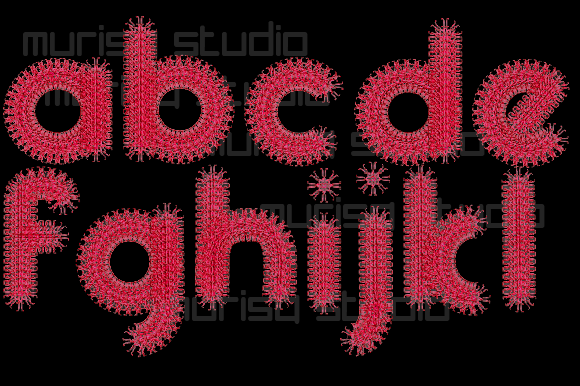
About Red Ribbon Font
Red Ribbon is a cool and fun color font that adds a vibrant and energetic touch to your designs. Whether you’re using it for crafting, digital designing, presentations, or greeting card making, this font is a perfect choice for a variety of creative projects.
With its playful red ribbon-like letterforms, this font brings a sense of excitement and liveliness to your typography. It grabs attention and creates a visually captivating experience, making it ideal for various purposes and themes.
Whether you’re creating personalized crafts, eye-catching digital designs, engaging presentations, or heartfelt greeting cards, Red Ribbon infuses your projects with a dynamic and fun atmosphere. Its unique appearance adds a pop of color and personality to your creations.
Embrace the coolness and fun of Red Ribbon and explore its versatility in your crafting and design endeavors. Let this font ignite your creativity and make your projects truly stand out. With Red Ribbon, you have a fantastic tool to add a playful and vibrant element to your designs, making them shine with creativity and style.